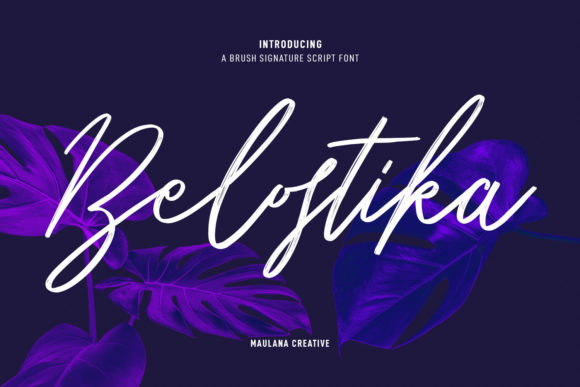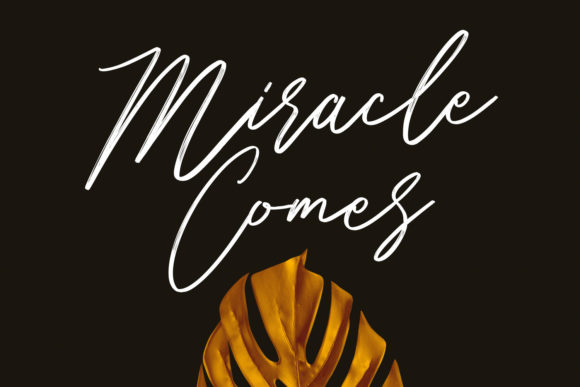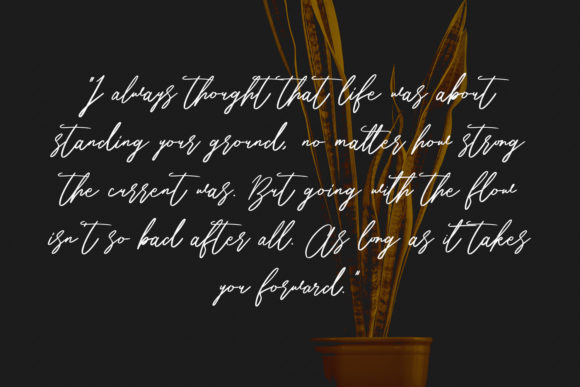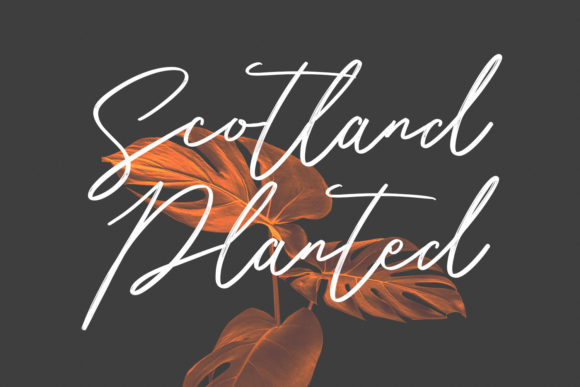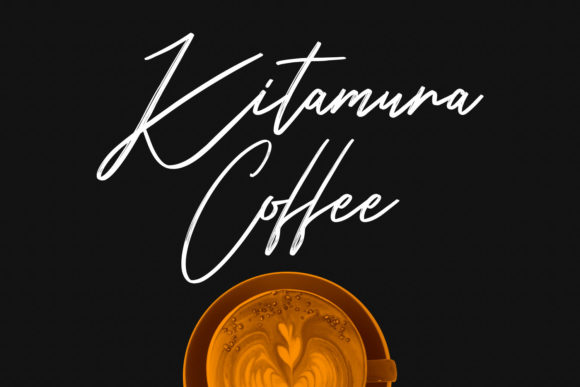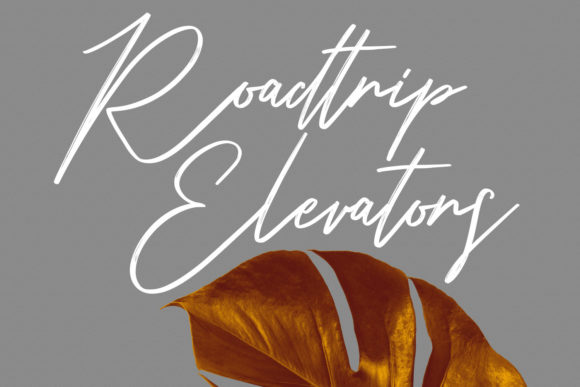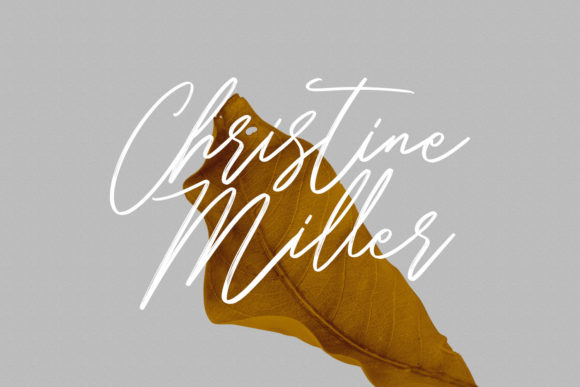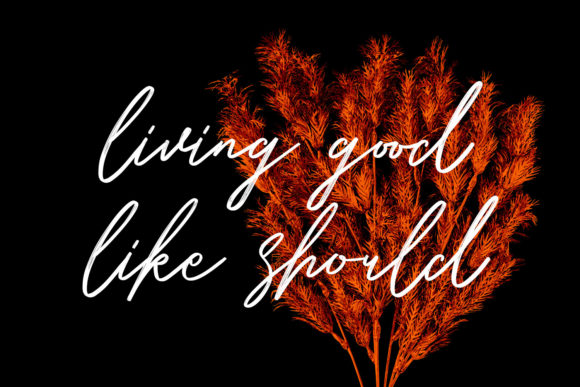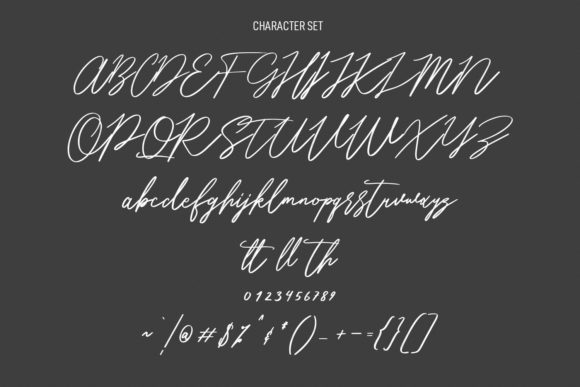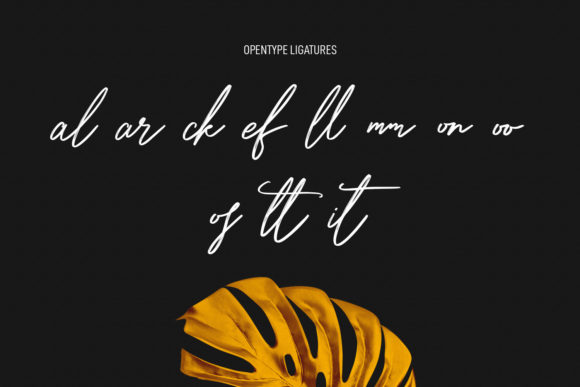
Belostika Script Font
About Belostika Script Font
Belostika Script feels equally gorgeous and delicate. It looks beautiful on wedding invitations, thank you cards, quotes, greeting cards, logos, business cards and every other design which needs a customized touch.